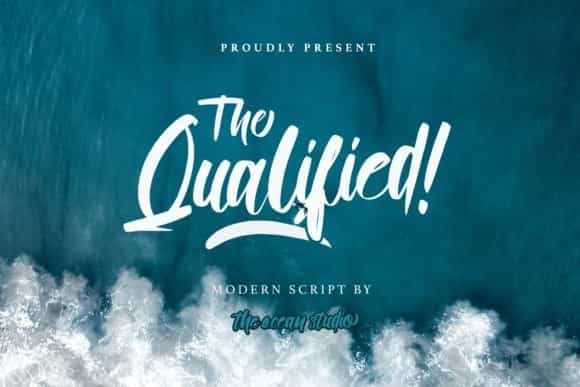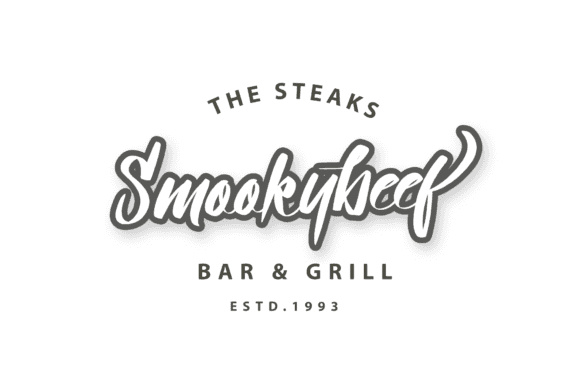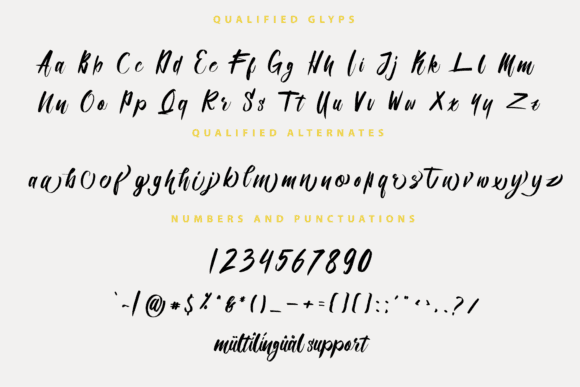
Qualified is a script that is equally modern and beautiful, it will turn any design idea into a true standout. It is supplied with capital, small letters, numbers, punctuation marks and so many different kinds of each character such as OpenType alternates. T… Logotype, Letterhead, Poster, Apparel Design and Label are just some of the many uses that you can have with this font.